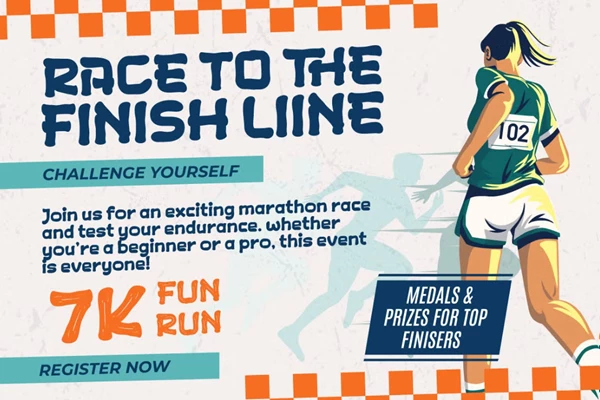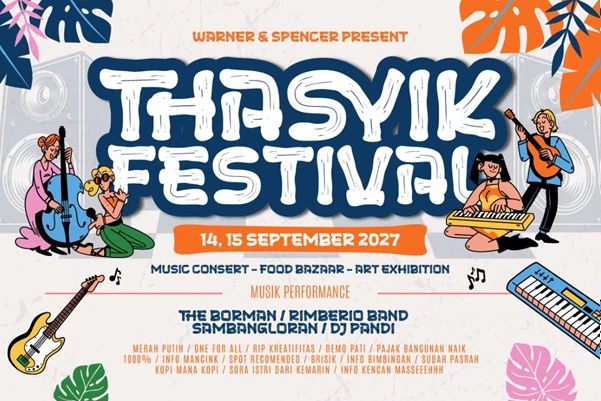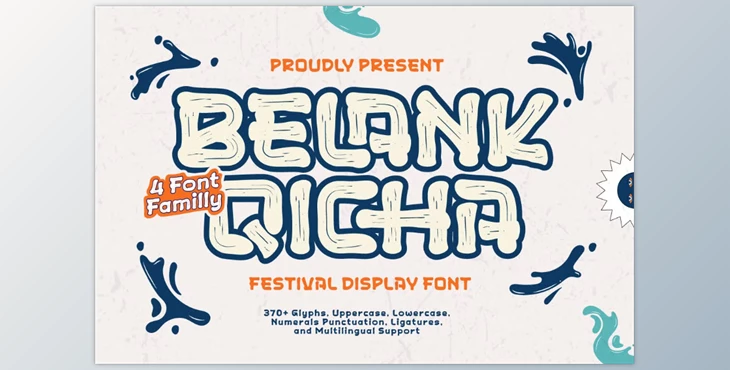
Belank Qicha - Festival Display Font:
Belank Qicha is a festive, energetic typeface that will bring a bold sense of playfulness to your projects. Belank Qicha is based on a festival-like ambience in four styles: Regular, Outline, Brush, and Blur. A nice blend of bold and softer characters is suitable for various situations, from advertising event flyers to merchandise stickers! With 370+ glyphs (including uppercase, lowercase, numerals, punctuation, ligatures, and multilingual options), this versatile font can be applied to a multitude of purposes: posters, event flyers, packaging, music covers, branding, and social media graphics. Thanks to its bold yet friendly disposition, it's a perfect choice for anything that needs to be read with vivacious intensity but also remains captivating and memorable.
- Contains all glyphs and features across each style.
- The font supports a total of 85 languages (Afrikaans, Danish, French, Italian, Polish, Spanish, Turkish, etc.).
- Transform your designs to bring festival life and uniqueness to them so they'll be bold and memorable.